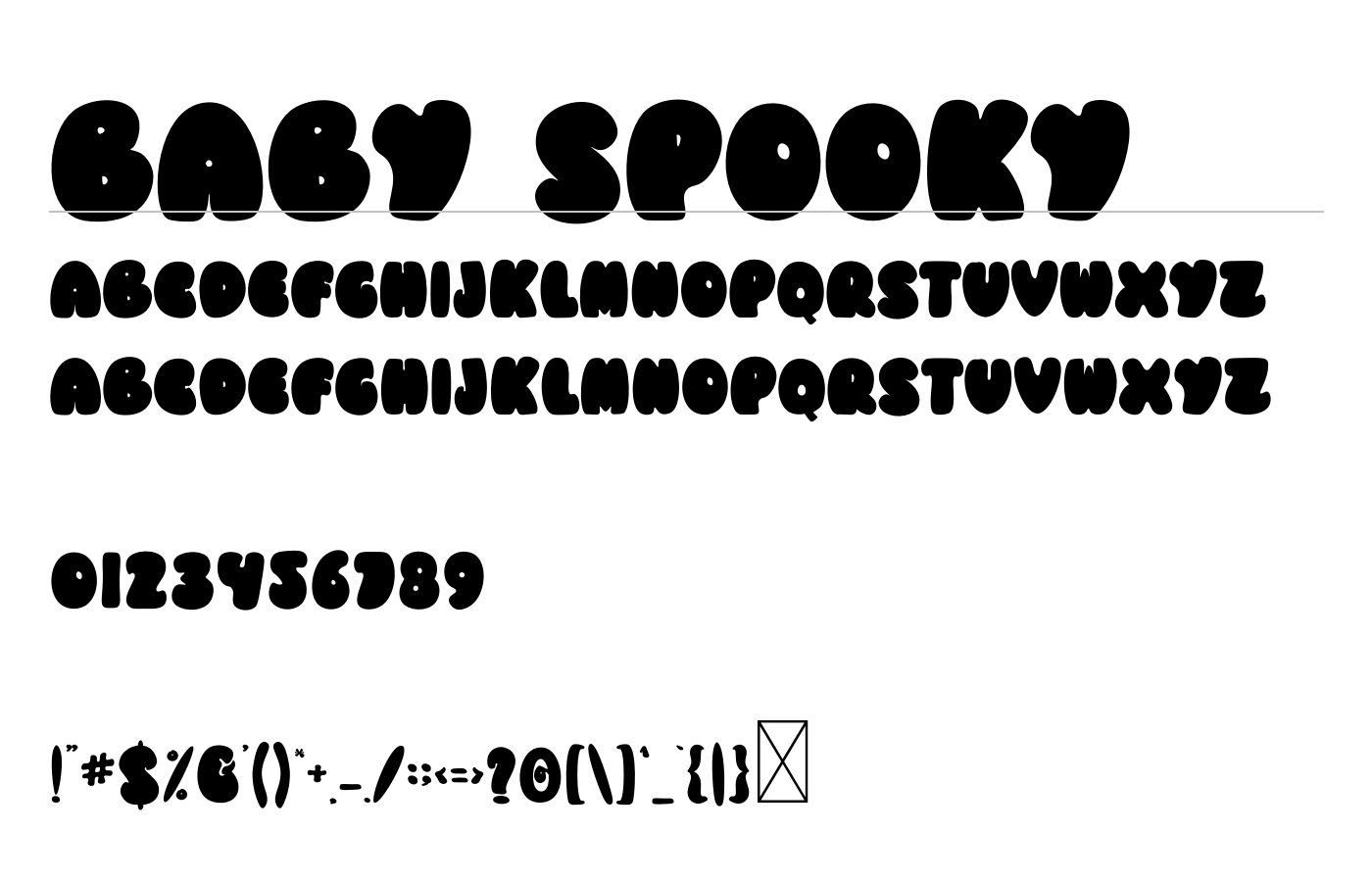
Baby Spooky is a playful and bold display font with thick, rounded letterforms that give it a bubbly, almost cartoonish feel. Its heavy weight and soft, organic shapes make it perfect for fun, lighthearted designs aimed at children or casual, spooky-themed projects. This font works best in headlines, logos, and playful packaging where a friendly yet eye-catching style is desired.
Baby Spooky Font
About Baby Spooky Font